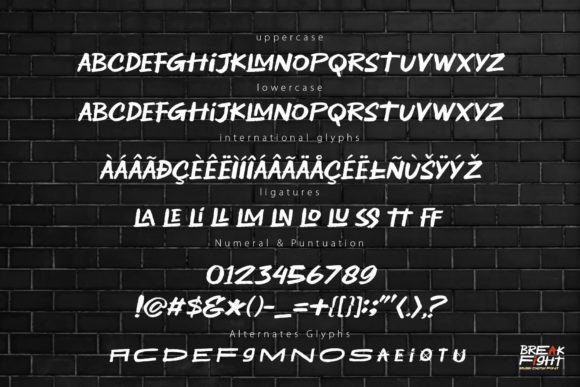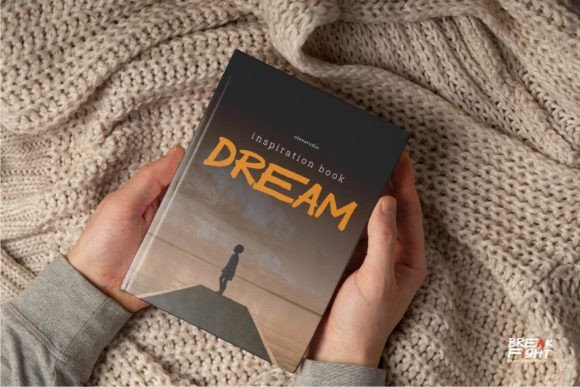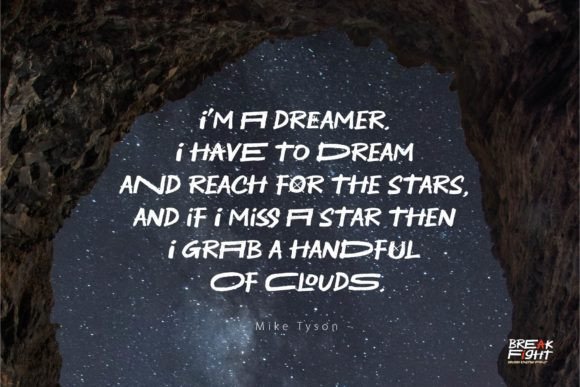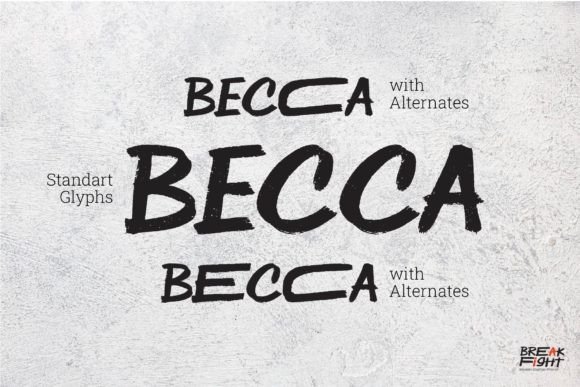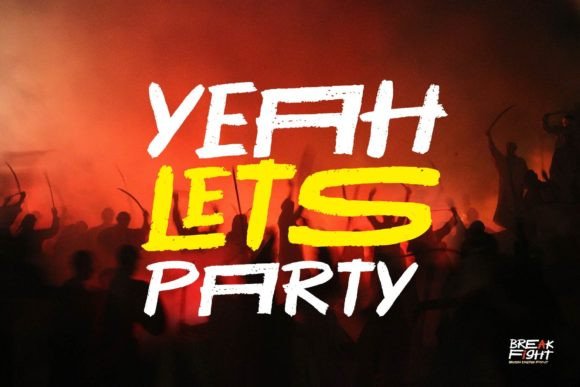
The Ultimate Guide to Break Fight Font: Unleash Your Creative Potential
Have you ever been in the middle of a design project, and suddenly, you’re stuck on finding the perfect font? I recall a recent experience where I was working on a branding project for a trendy new cafe, and I just couldn’t find a font that captured the right vibe. That’s when I stumbled upon Break Fight, a cool and modern brush display font that instantly elevated my design. In this article, we’ll dive into the world of Break Fight, exploring its features, how to use it, and what makes it an excellent addition to your font collection.
An Honest Review of Break Fight Font
So, what makes Break Fight so special? Let’s break it down (pun intended!).
What I Love About Break Fight ✨
- 💥 Unique and Modern Design: Break Fight boasts a fresh, contemporary look that’s perfect for making a statement in your designs.
- ✅ Ease of Use: This font is incredibly easy to work with, even for those who aren’t super tech-savvy.
- 🎨 Versatility: Break Fight can be used for a wide range of projects, from branding and advertising to packaging and more.
- 💕 Aesthetic Appeal: The font’s brush-like texture adds a touch of warmth and personality to any design.
While Break Fight is an excellent font, there are a few minor things to keep in mind:
- ⚠️ Legibility at Small Sizes: Like many brush fonts, Break Fight can become a bit tricky to read at very small sizes. It’s best used for headlines or titles.
- 🖌️ Limited Formality: Due to its casual, brush-like nature, Break Fight might not be the best fit for very formal or corporate projects.
One of the exciting aspects of Break Fight is its support for OpenType features. This means you can access a variety of glyphs and stylistic alternates to further customize your text. For example:
- Access Stylistic Sets to alter the look of letter combinations.
- Use Swashes to add flair to your initial letters.
- Explore Ligatures for a more natural text flow.
The Backstory of Break Fight Font
While the exact origins of Break Fight might be shrouded in mystery, it’s clear that it was designed with the modern designer in mind. The creators aimed to produce a font that was both visually striking and easy to use, perfect for adding a personal touch to any project.
| Author | Olexstudio |
Q: Is Break Fight suitable for body text?
A: Due to its brush nature and potential legibility issues at small sizes, Break Fight is best used for headlines or titles rather than body text.
Q: Does Break Fight support OpenType features?
A: Yes, Break Fight supports OpenType features, including stylistic sets, swashes, and ligatures, allowing for a high degree of customization.
Break Fight font is an excellent addition to any designer’s toolkit, offering a unique blend of modern style and versatility. Whether you’re working on branding, advertising, or just want to add some flair to your creative projects, Break Fight is sure to impress. So go ahead, give it a try, and see how it can elevate your designs!